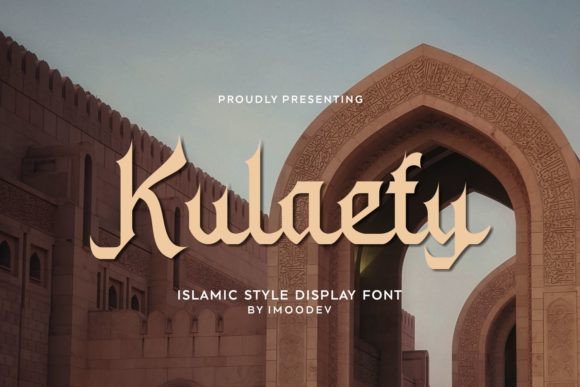
Unleash the Enchantment of Oriental Calligraphy with Kulaefy: The Gateway to Exquisite Cursive Word Designs
Journey into the realm of typography artistry with Kulaefy, a captivating display font that draws inspiration from the time-honored tradition of Arabic calligraphy. This extraordinary creation by Imoodev harmoniously blends the essence of Eastern elegance with contemporary design sensibilities, bringing forth a font that is both visually captivating and deeply evocative.
With its intricate ligatures, sweeping strokes, and graceful flourishes, Kulaefy effortlessly adds a touch of enchantment to any creative endeavor. Whether you're crafting logos, invitations, posters, or social media graphics, this font possesses the power to transform ordinary words into mesmerizing works of art.
Step into a world where letters dance with exquisite beauty, where every word carries the weight of history and the promise of untold stories. Kulaefy is not merely a font; it's an invitation to embark on a creative odyssey, where your imagination knows no bounds.
Indulge in the tactile sensation of gliding your pen across parchment, the gentle whisper of ink gracing paper. Kulaefy captures the essence of this timeless art form, bringing the magic of calligraphy to the digital realm.
Unleash your inner storyteller and let Kulaefy's captivating curves and intricate details elevate your designs to new heights. Experience the joy of crafting messages that resonate with timeless elegance, evoking a sense of wonder and admiration in all who behold them.